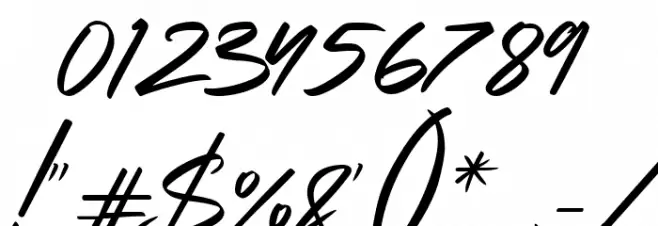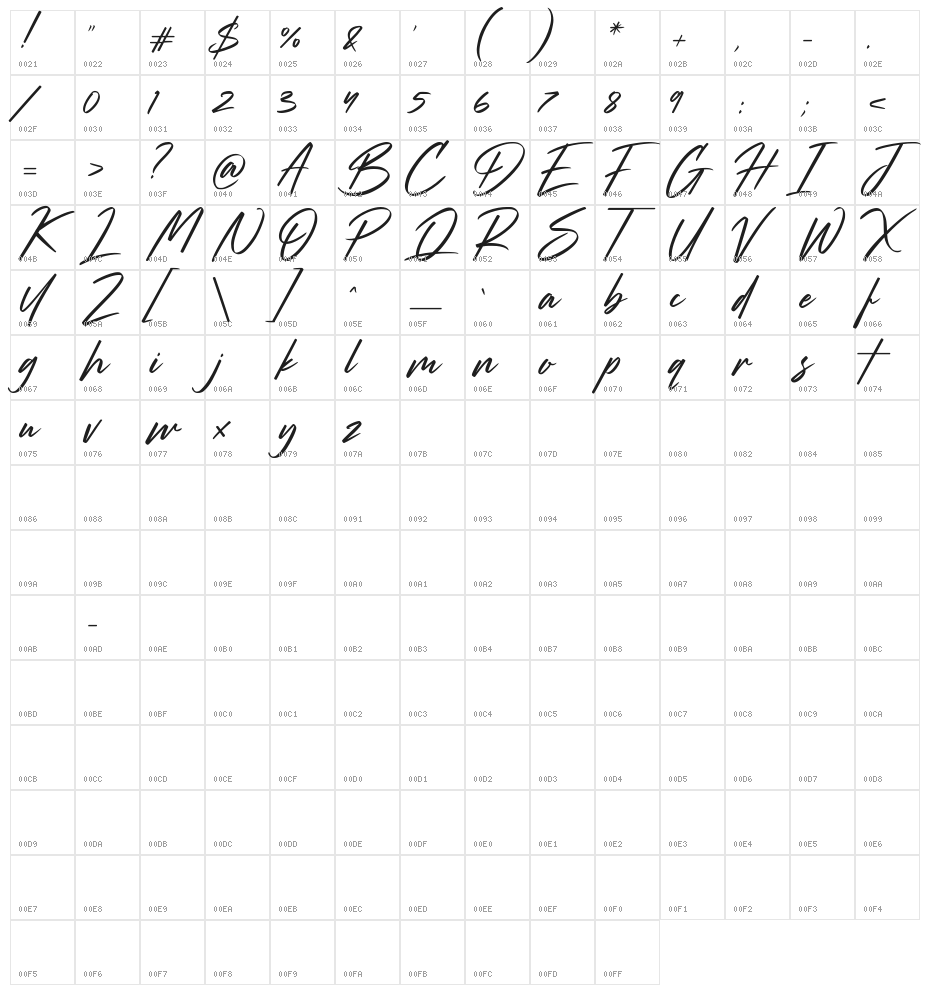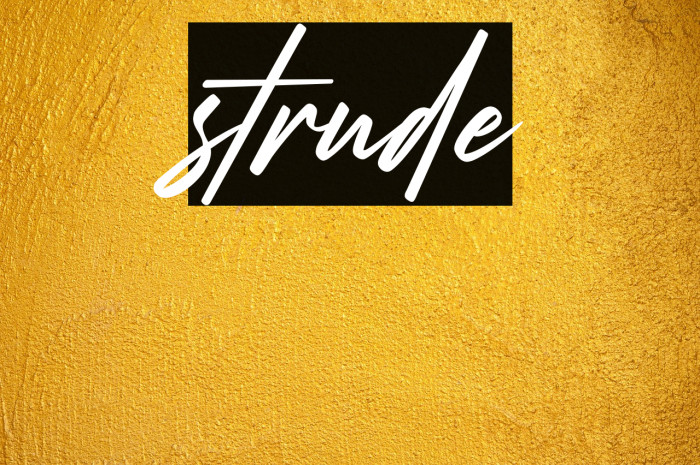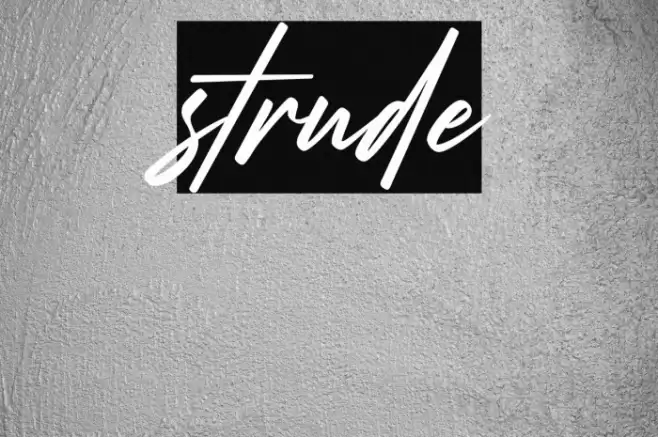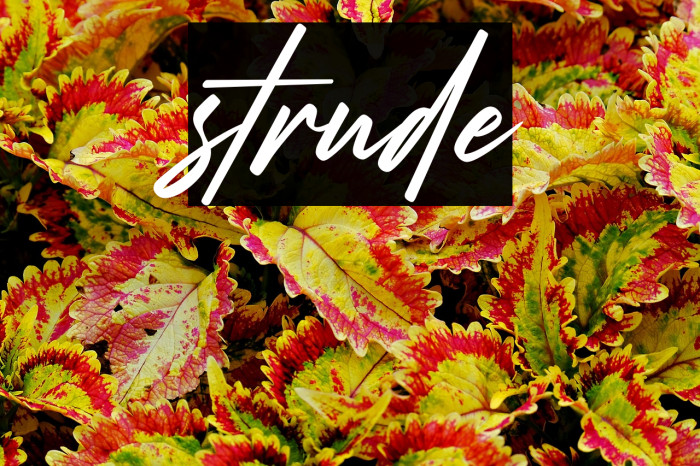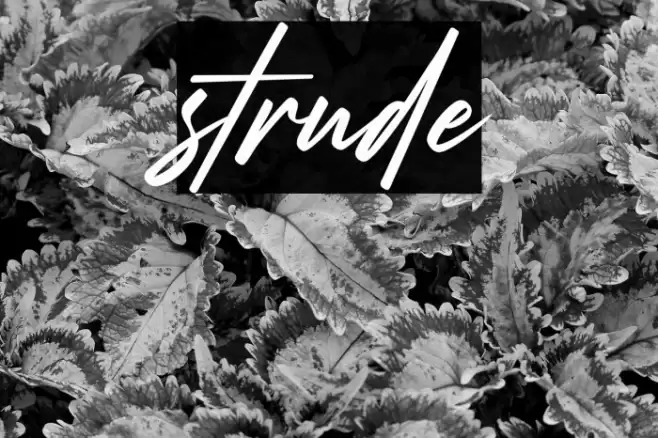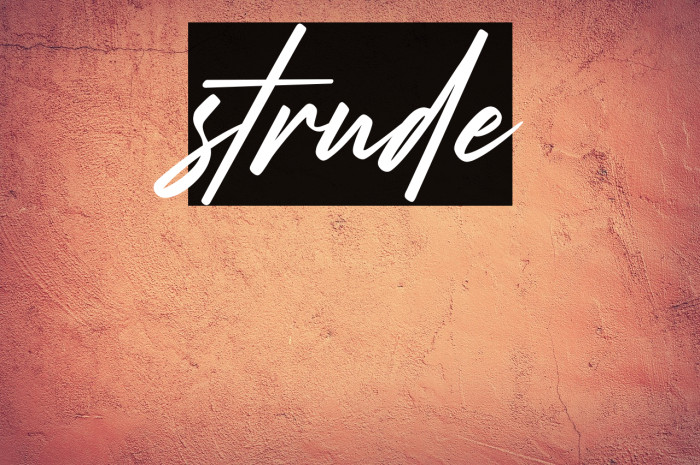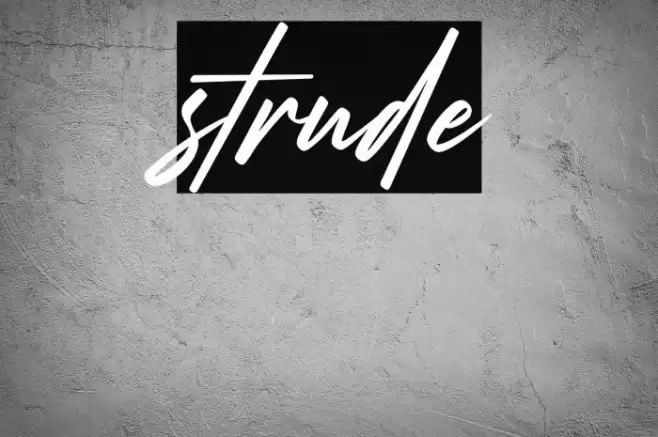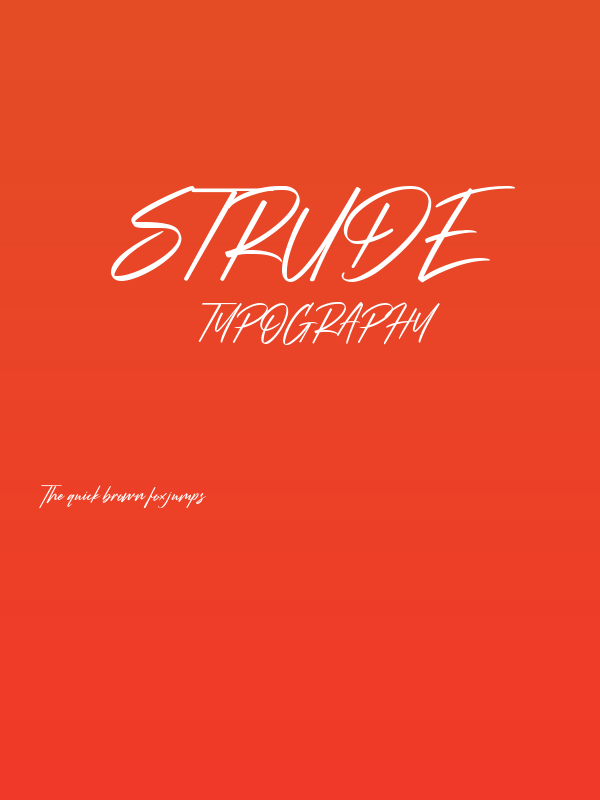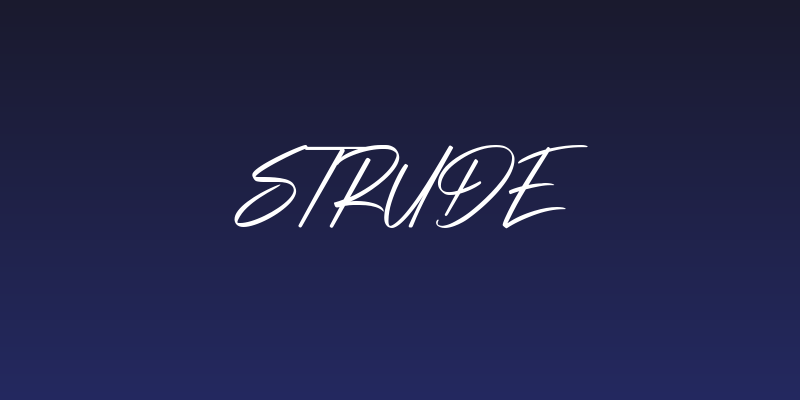
strude Font
strude Description
This font exudes a dynamic and energetic feel, characterized by its flowing, cursive script style. The letters are interconnected with smooth, sweeping strokes, giving it a handwritten appearance. The uppercase letters maintain a consistent height, while the lowercase letters vary in size, adding to its casual and informal charm. The numerals and special characters follow the same fluid style, ensuring a cohesive look across all glyphs. This font is ideal for projects that require a personal touch, such as invitations, greeting cards, or branding materials that aim to convey warmth and approachability.
| Proposed Projects | Ideal for invitations, greeting cards, personal branding, and any project needing a warm, personal touch. |